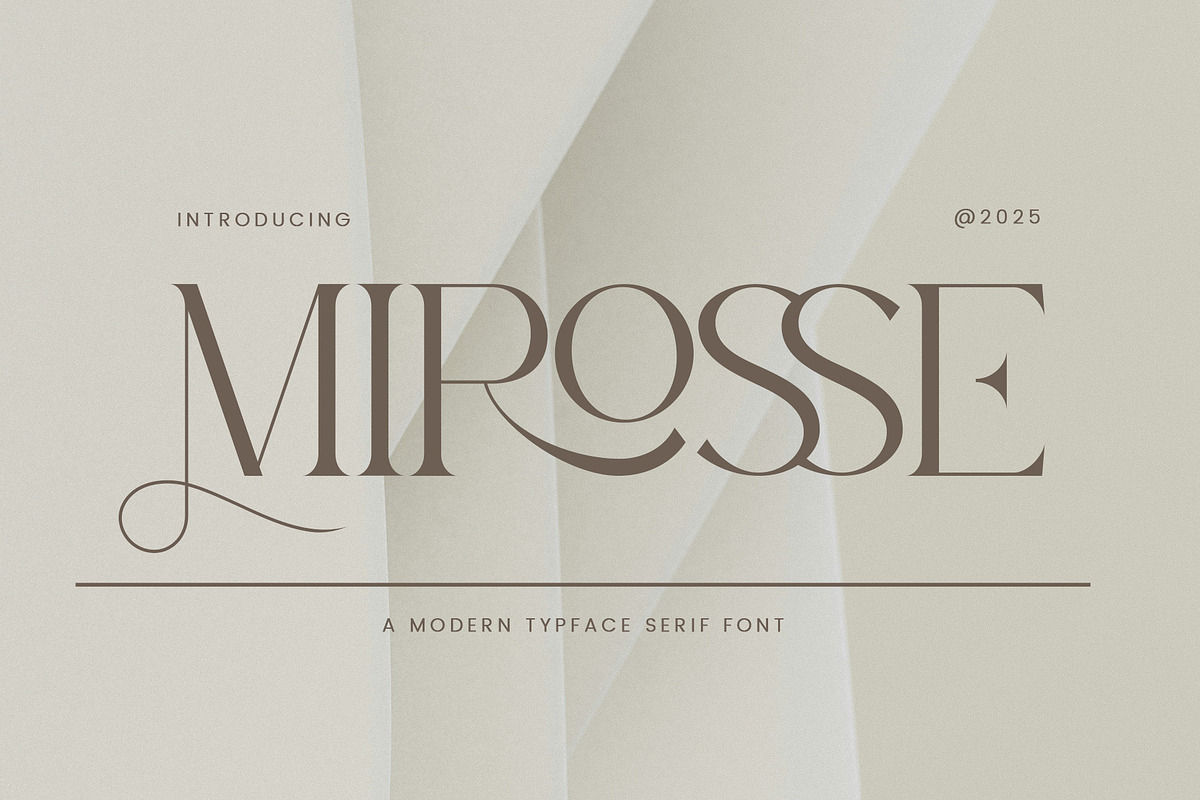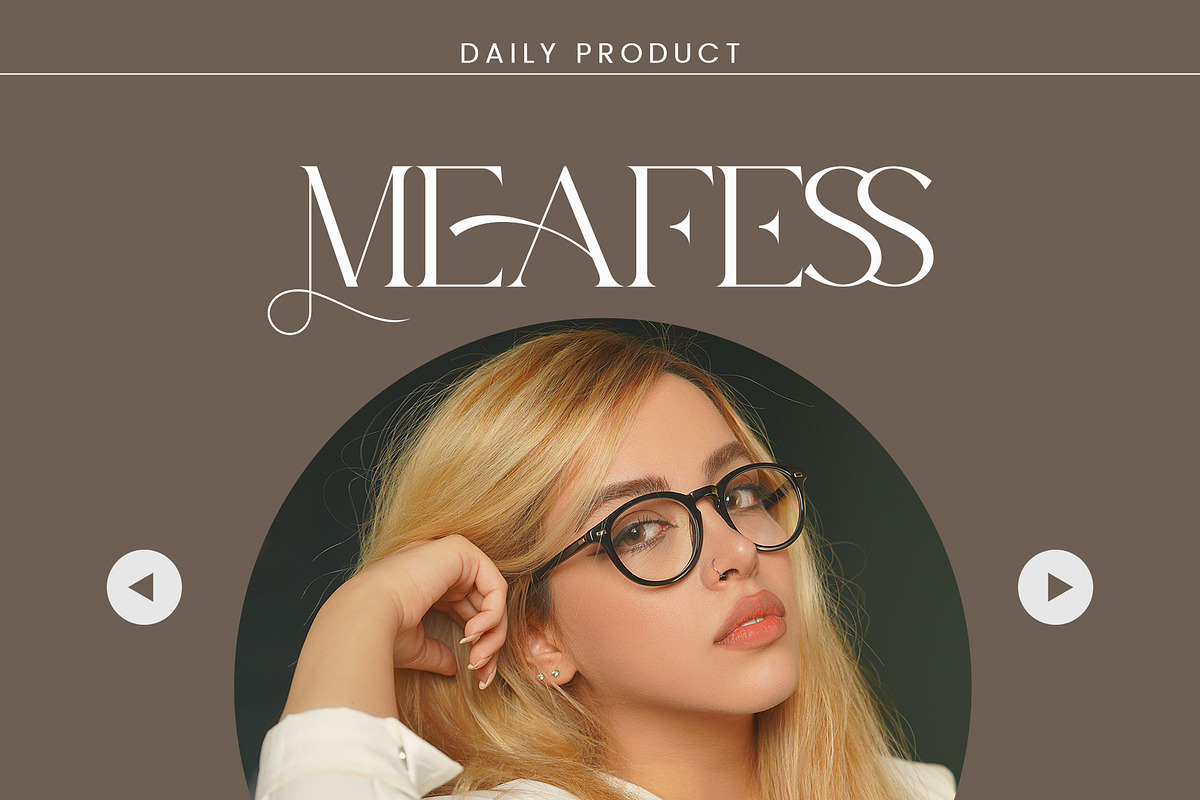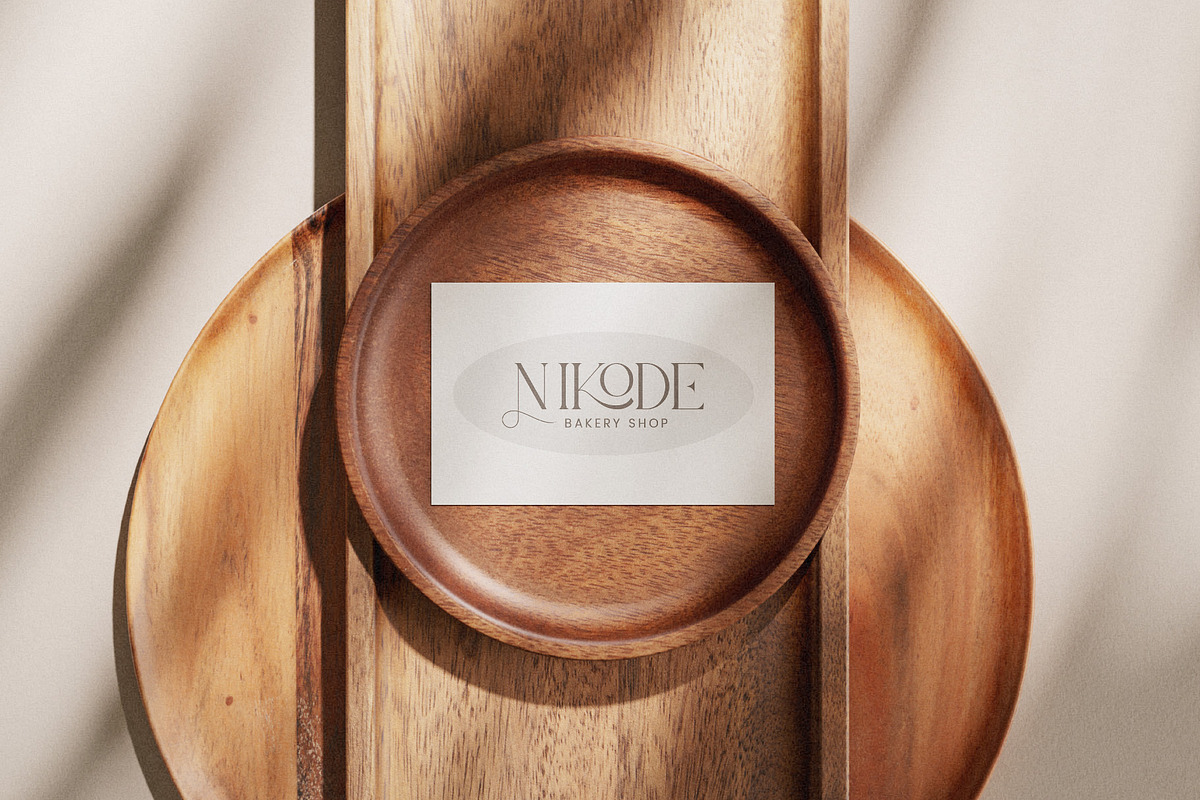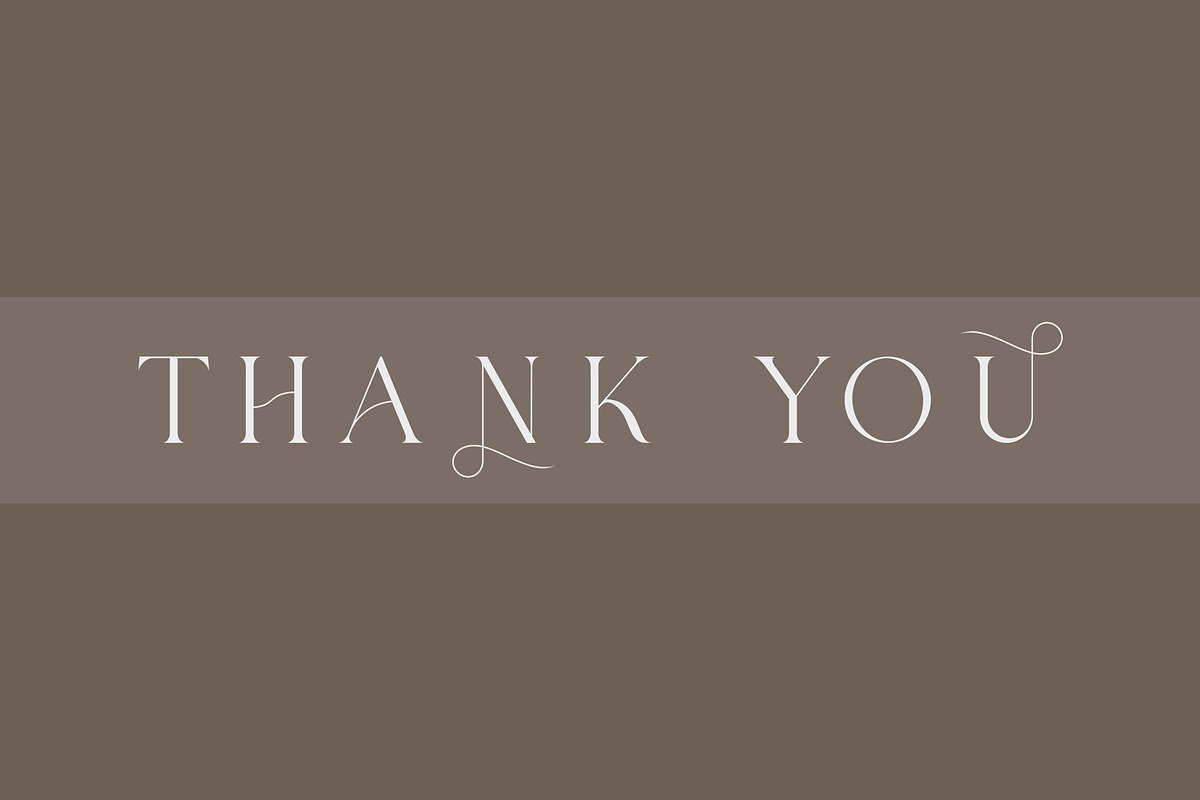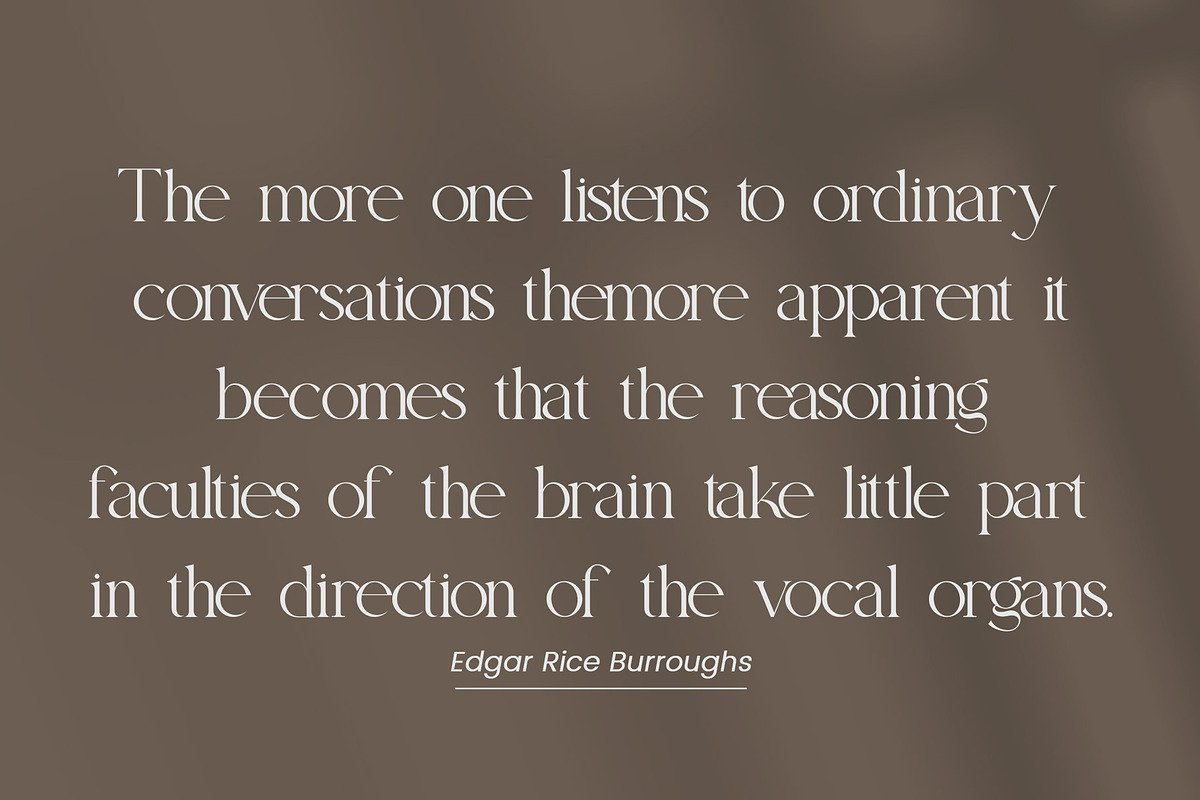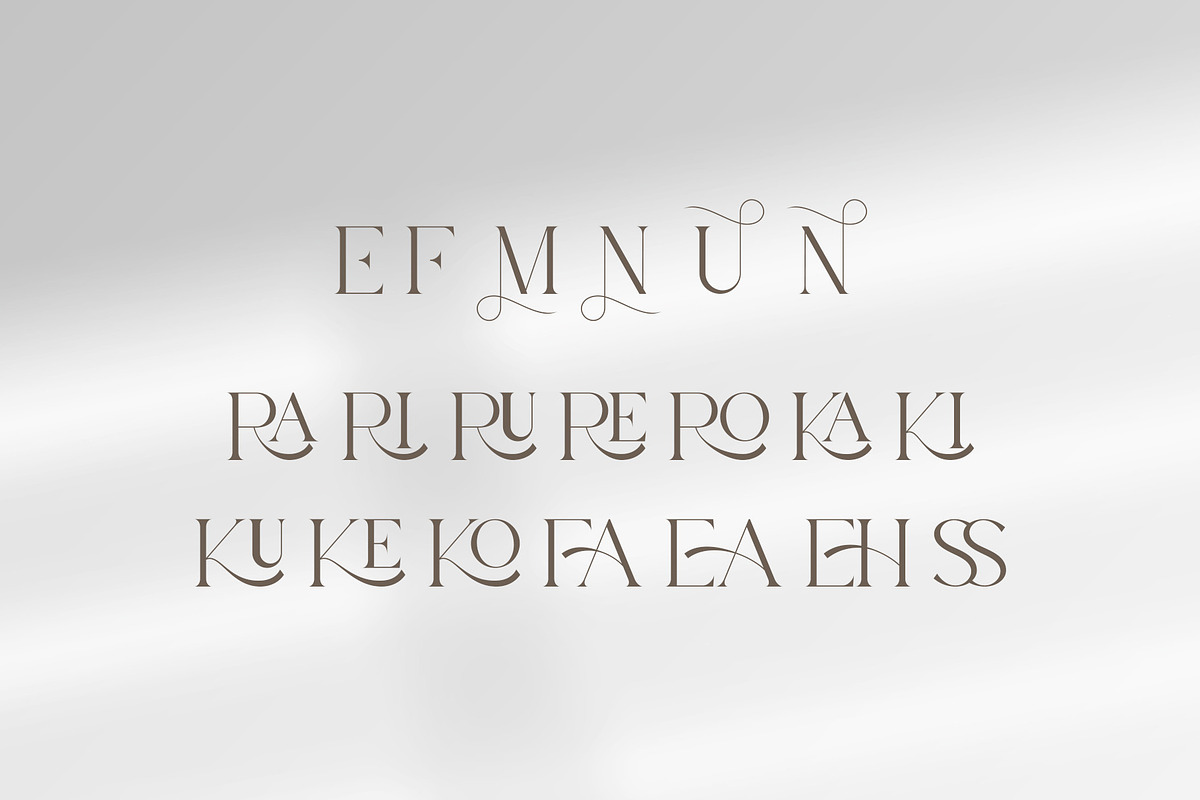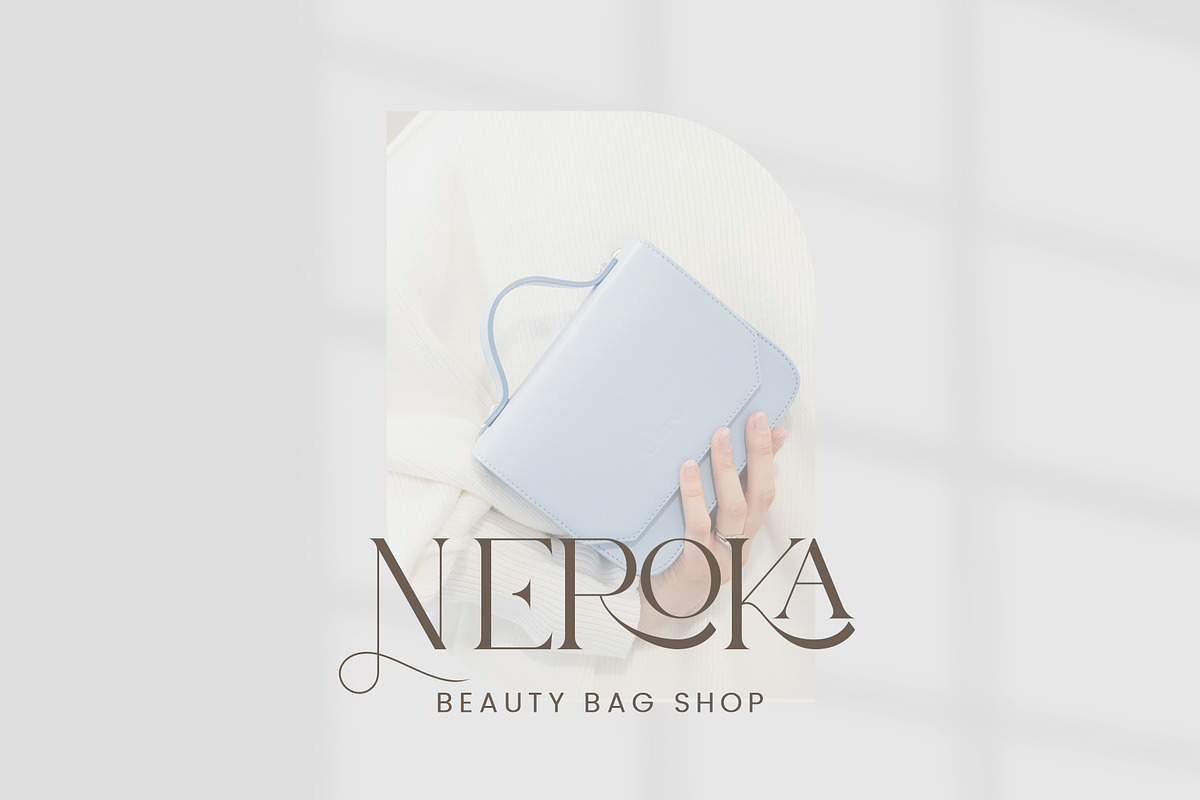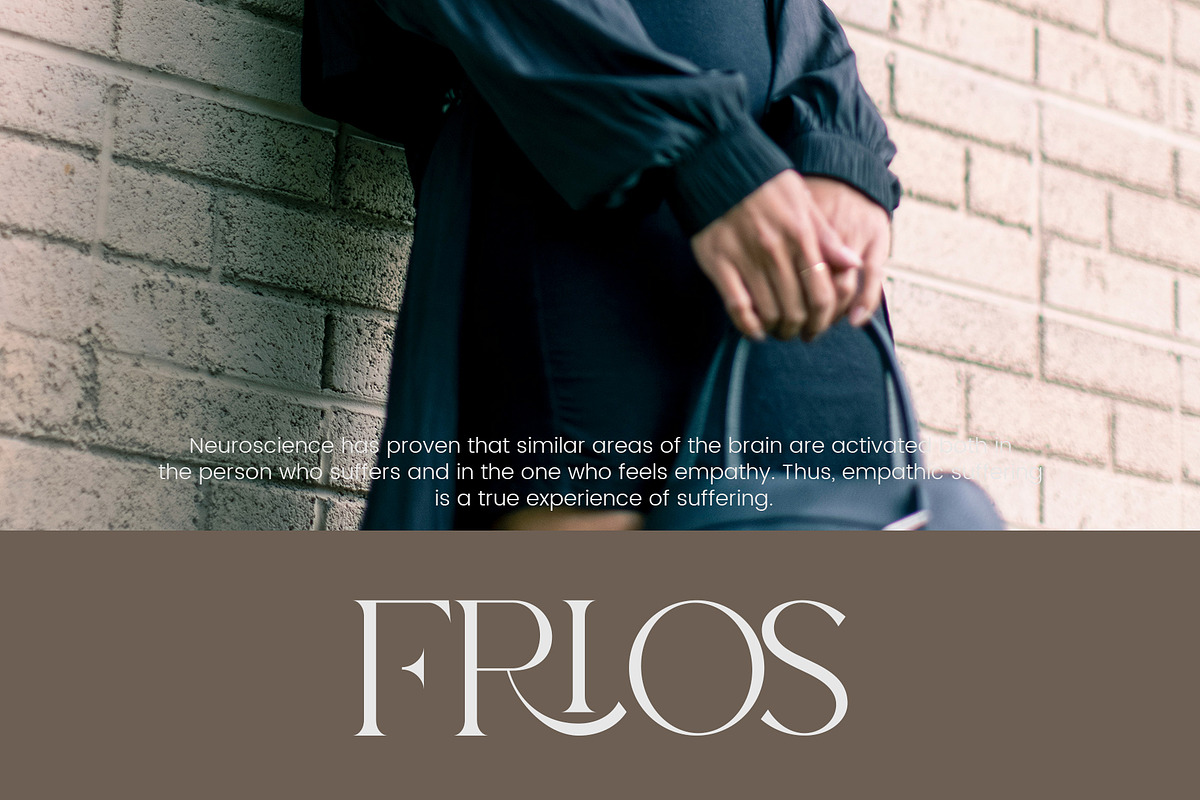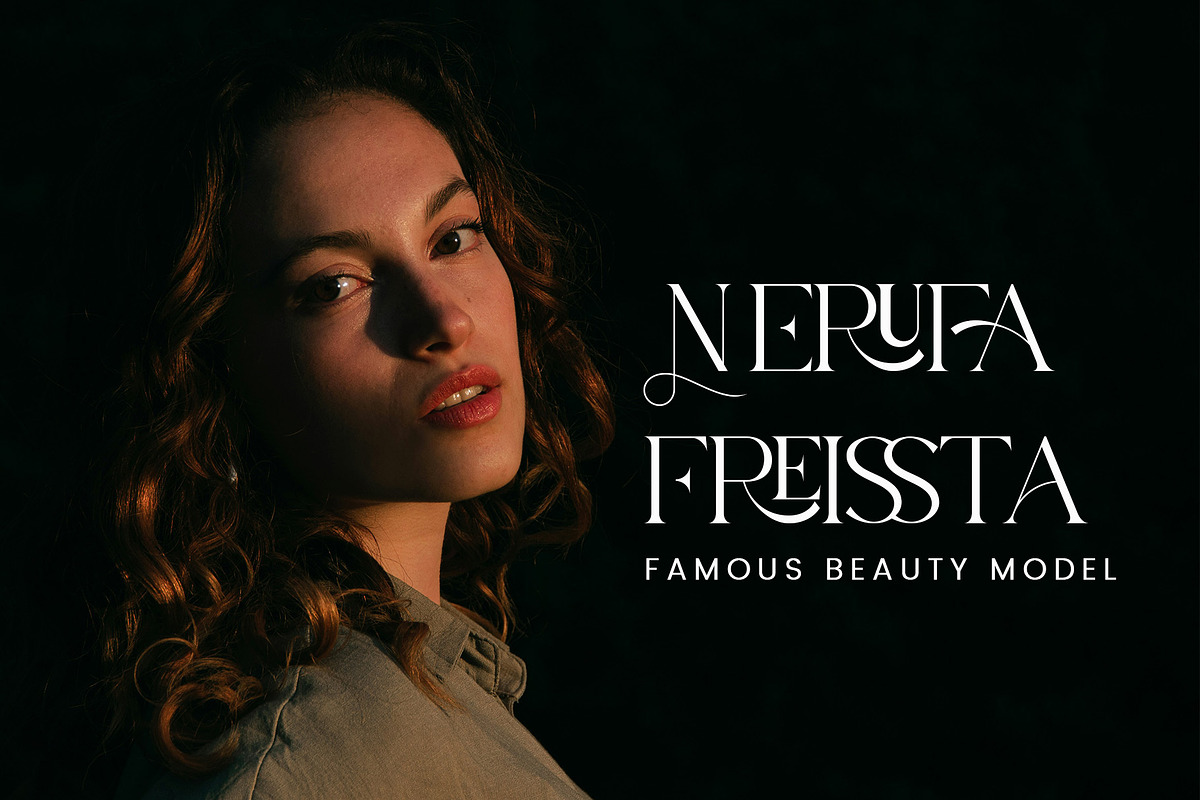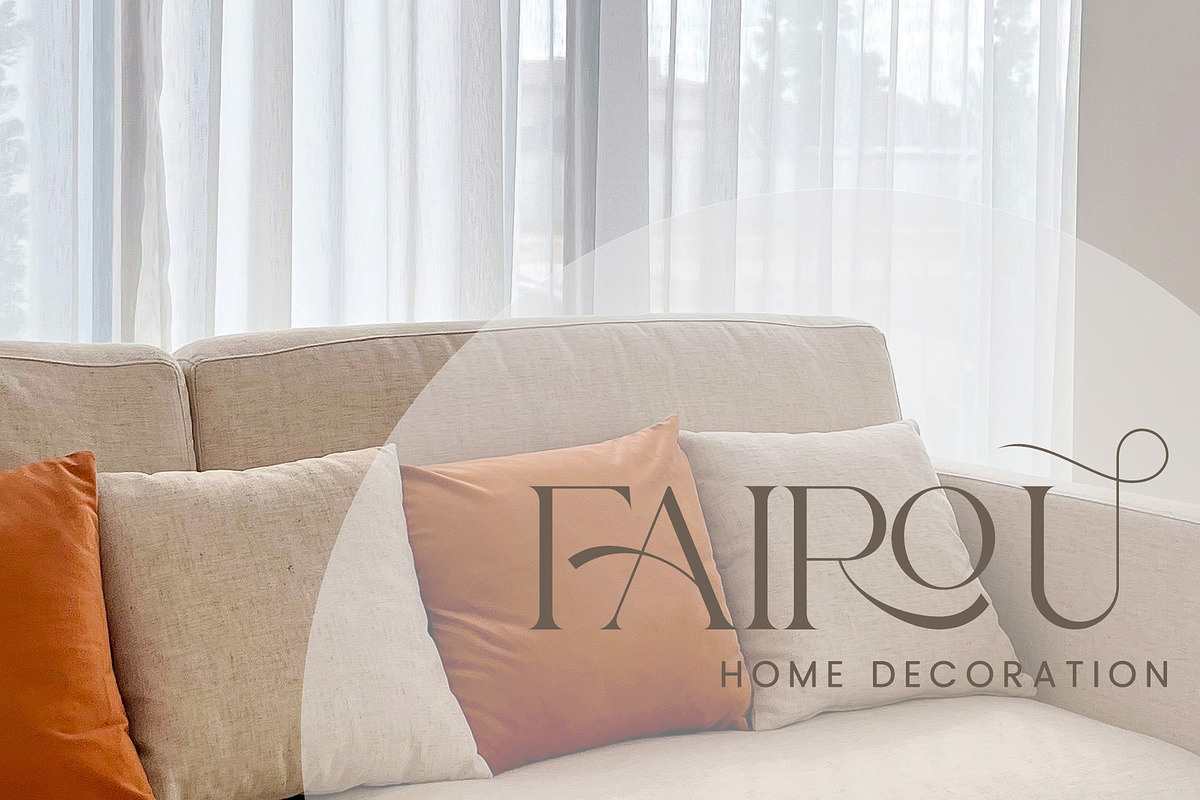
Mirosse - Modern Typface Serif Font
Mirosse - Modern Typface Serif Font is a font designed with a modern and minimalist style. It’s perfect for various design needs, such as logos , brochures, videos, advertising branding, posters, invitations, and More.
This font is the perfect choice to make your designs look professional and appealing.